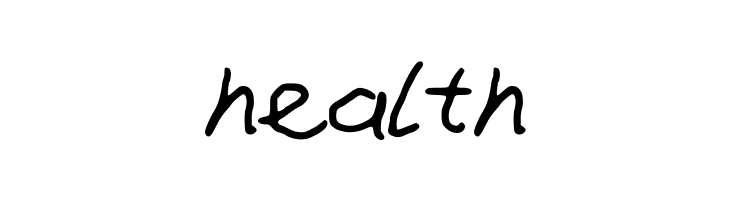
( truefonts.blogspot.com )
A bold, striped font with a modern and dynamic style.
( Font by Yanko Tsvetkov - www.alphadesigner.com )
A bold, futuristic font with geometric cuts and strong visual impact.
( Font by Sven Stuber - www.superlooper.de )
A sleek, modern, light italic font with a streamlined design.
( Font by Sven Stuber - www.superlooper.de )
A modern, bold italic font with smooth curves and a compact design.
( Font by Sven Stuber - www.superlooper.de )
A bold, modern font with rounded edges and a friendly appearance.
( Font by Sven Stuber - www.superlooper.de )
A modern, rounded sans-serif font with a clean and approachable design.
( Font by Sven Stuber - www.superlooper.de )
A modern, light sans-serif font with a geometric influence and clean lines.
( Font by Sven Stuber - www.superlooper.de )
A sleek, modern italic font with consistent stroke width and dynamic style.
( Font by Sven Stuber - www.superlooper.de )
A modern, geometric font with thin strokes and a minimalist design.
Recent favorites include MyBeliefs, Rayada tfb, MagmawaveCaps-Bold, Nordica LightItalic and Nordica BoldItalic. They balance clarity and personality, working well for tech brands, editorial layouts, and social visuals.